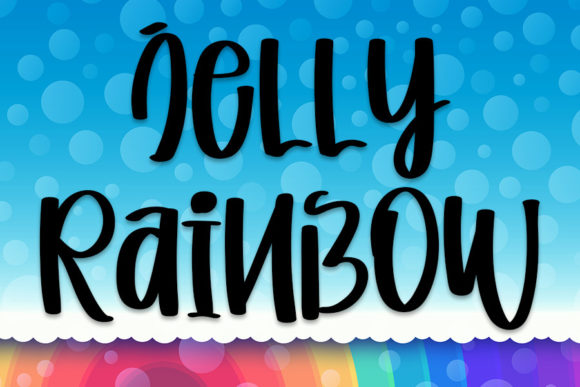
Unleash your creativity and let your words dance with the Jelly Rainbow font, a whimsical and charming script font that will add a touch of magic to your designs. Created by the talented Inermedia STUDIO, this font family captivates with its playful curves and elegant strokes, making it the perfect choice for a wide range of projects.
Dive into a world of limitless possibilities with Jelly Rainbow. Its enchanting style is perfect for adding a personal touch to your social media posts, invitations, greeting cards, and other digital creations. Whether you're designing a captivating poster, crafting a heartfelt letter, or creating eye-catching branding materials, Jelly Rainbow will bring your vision to life with its unique and enchanting charm.
With Jelly Rainbow, you'll discover a font that's as versatile as it is beautiful. Its enchanting characters will elevate your designs with a touch of whimsy and elegance. Whether you're a seasoned designer seeking a unique font for your next masterpiece or a creative enthusiast looking to add a personal touch to your projects, Jelly Rainbow is the perfect choice.
- Chic and trendy handwritten font
- Perfect for Instagram posts, calligraphy scripts, and DIY projects
- Adds a touch of whimsy and elegance to your designs
- Versatile and suitable for a wide range of creative projects
- Perfect for adding a personal touch to social media, invitations, greeting cards, and branding materials
- Enchanting style that captivates and leaves a lasting impression